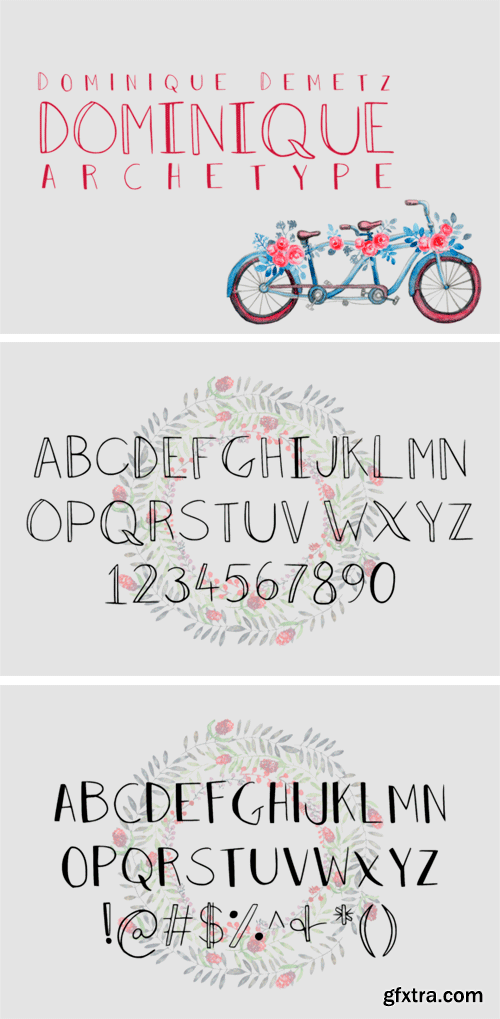
archetype 字体
Archetype Font
The archetype is a fun and original un-updated font. It has a playful style which can be used to give any design an unique look.